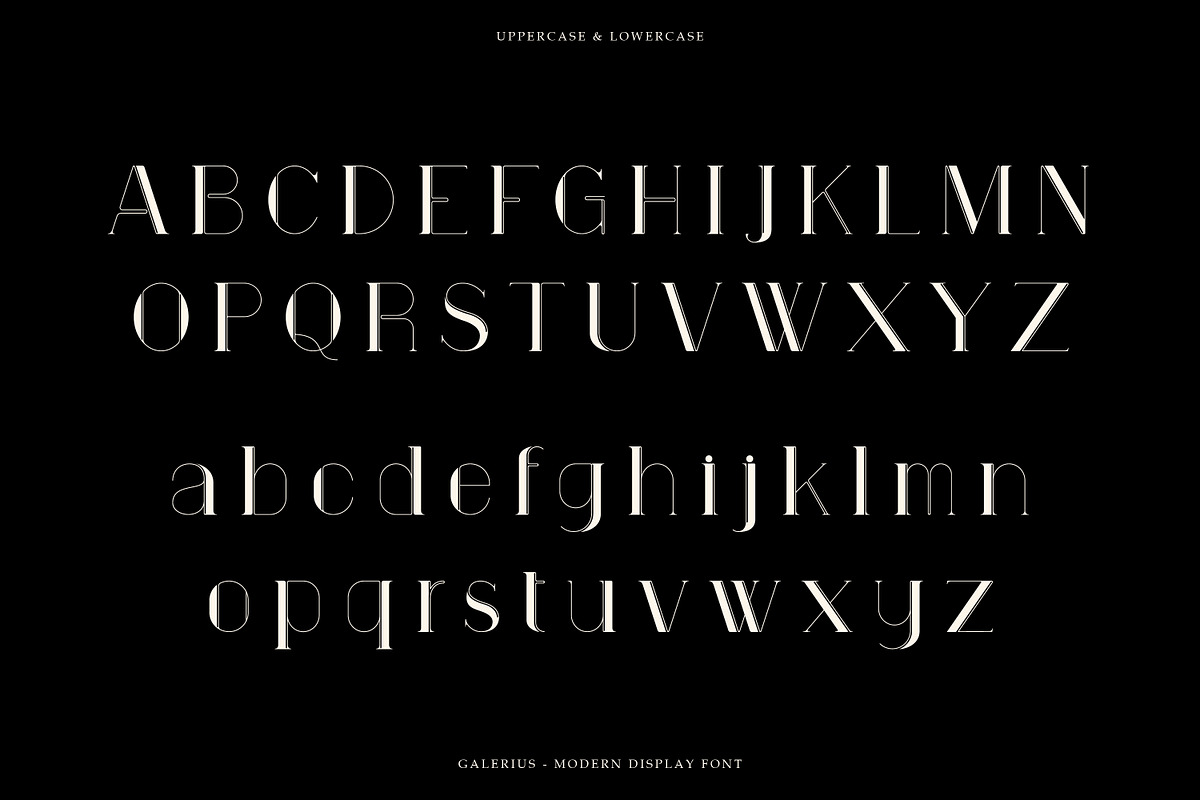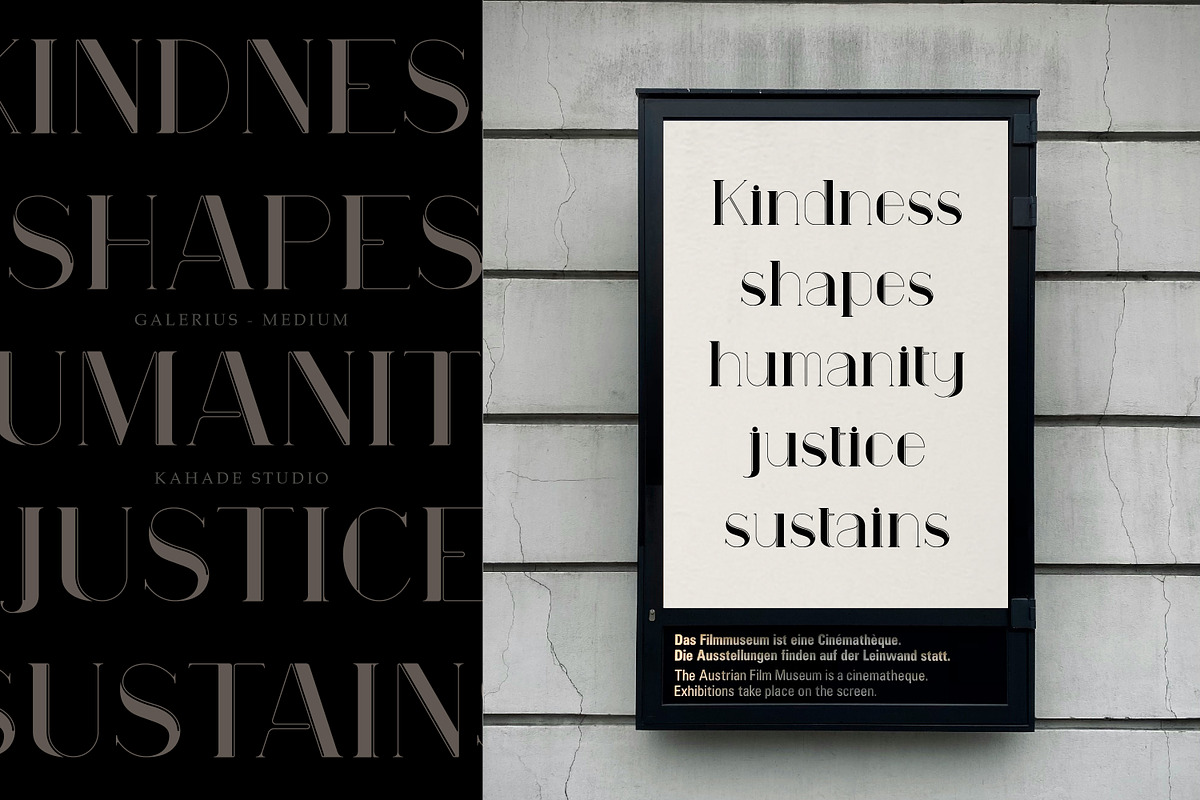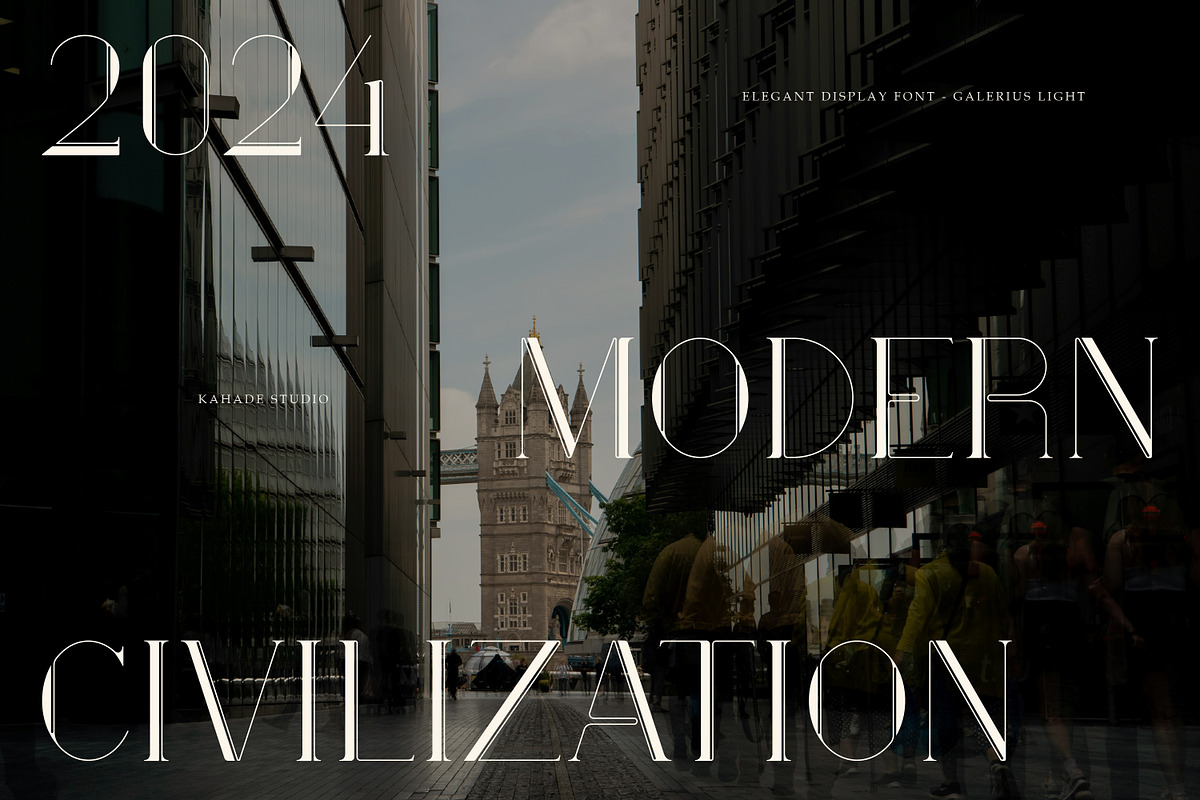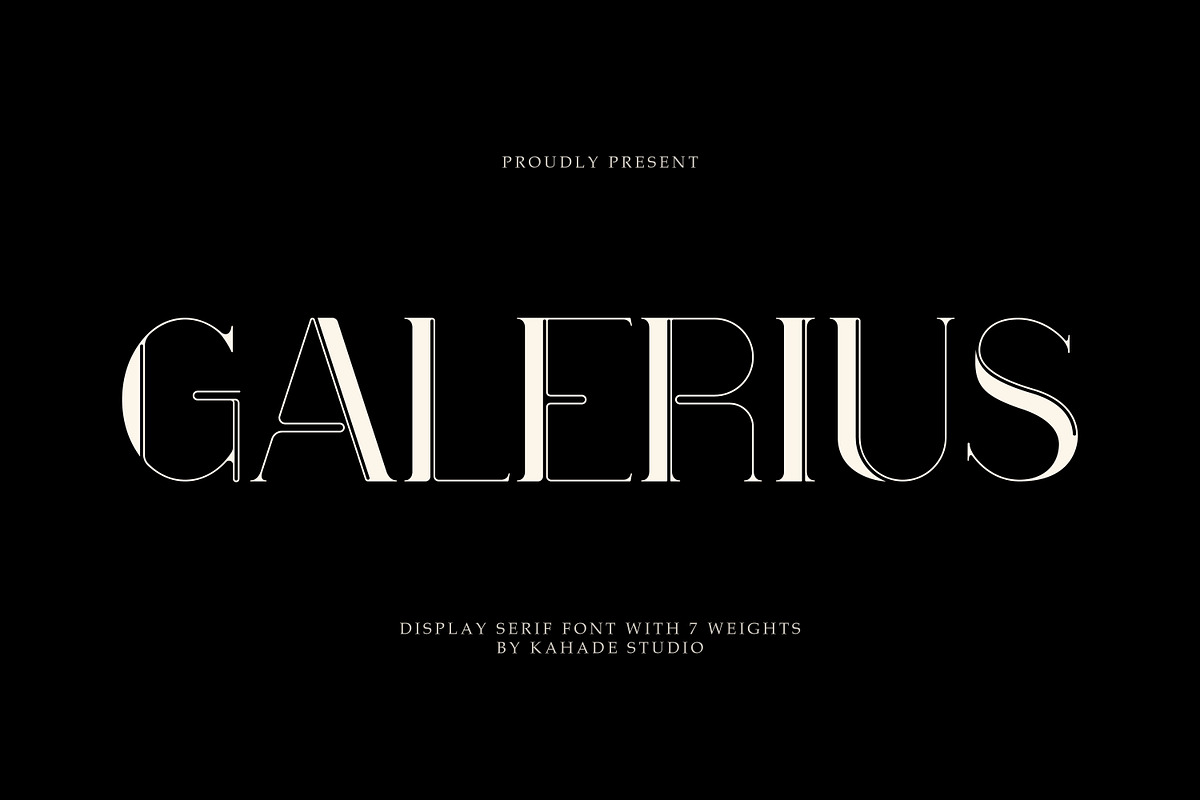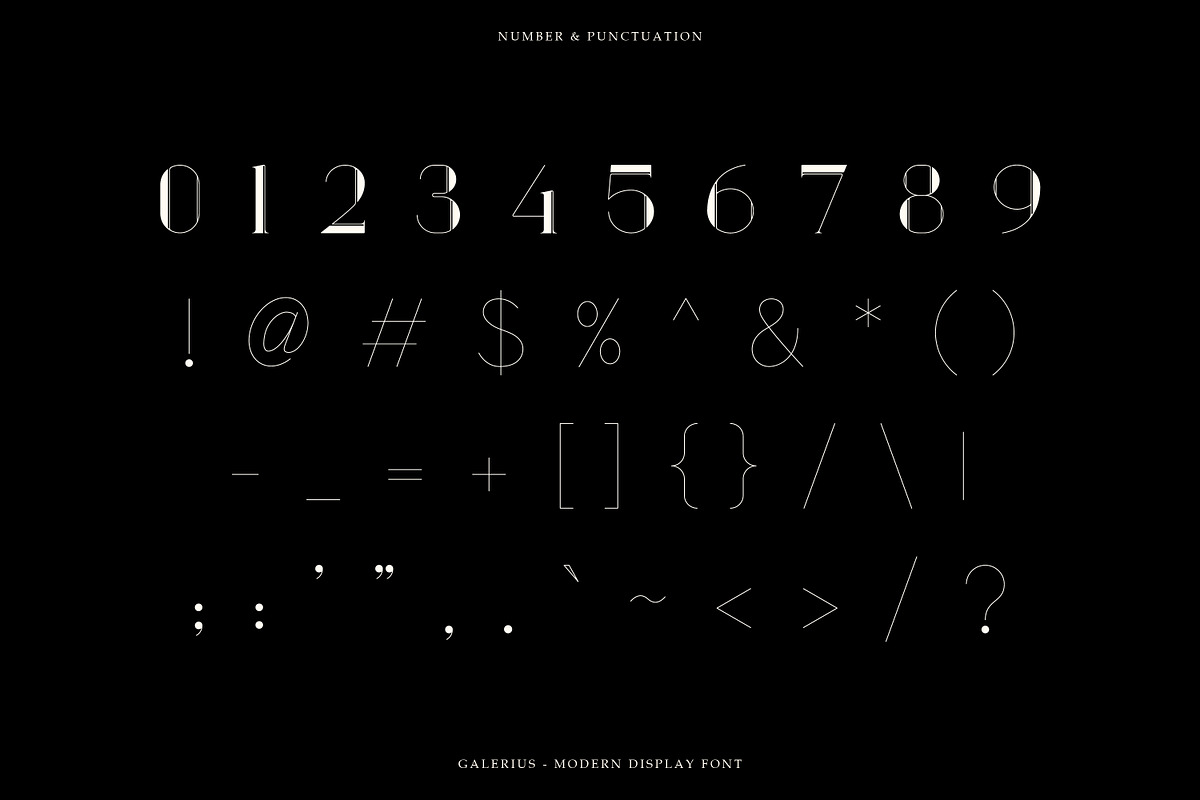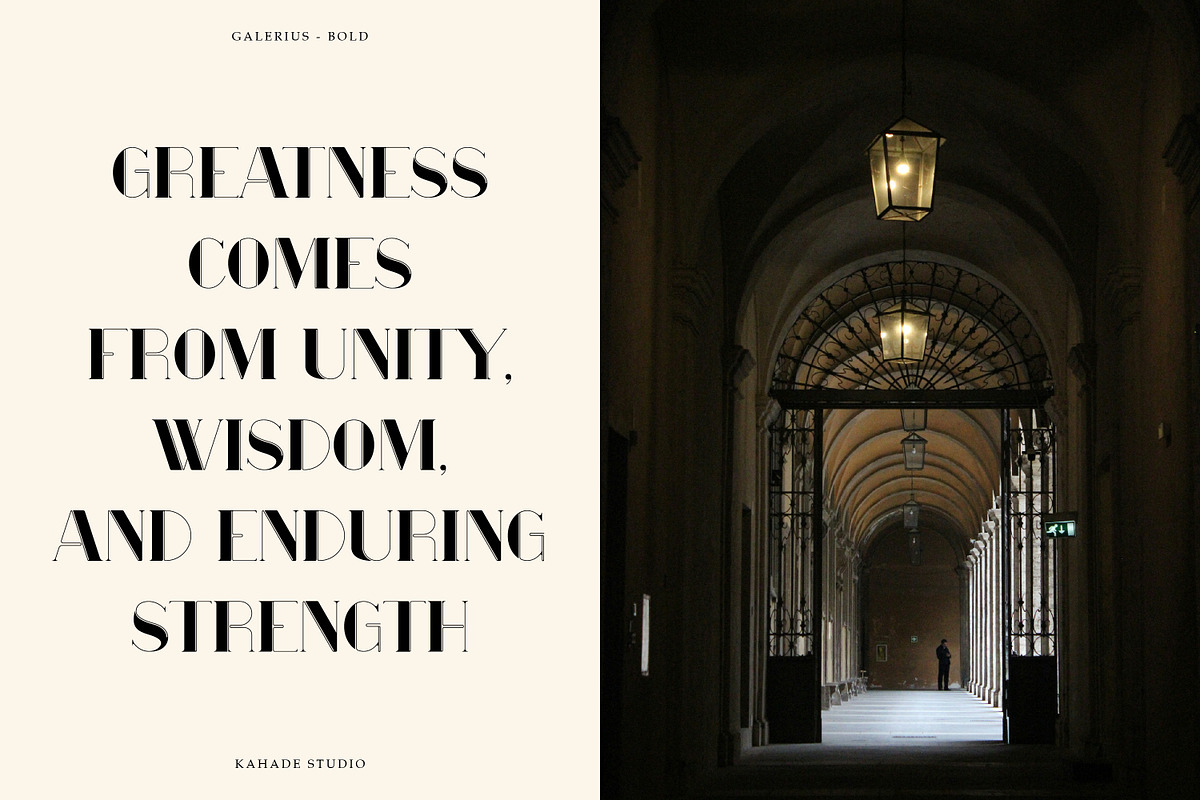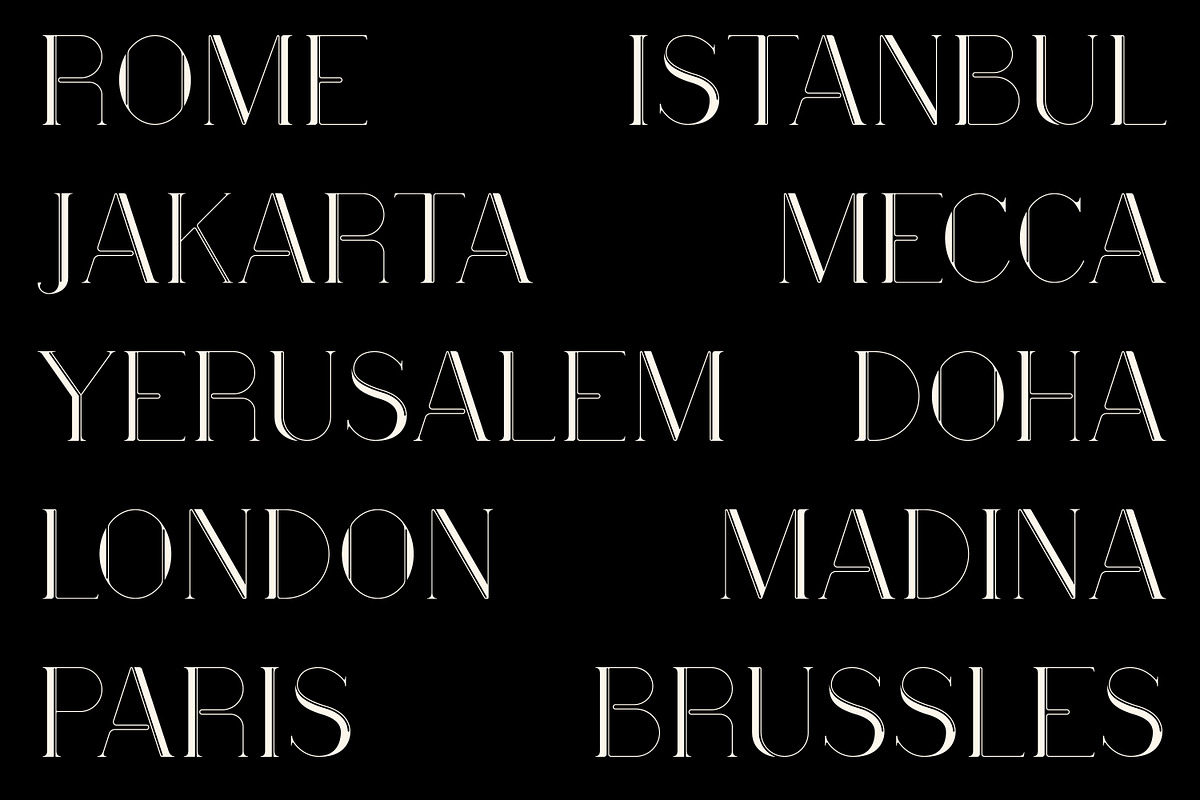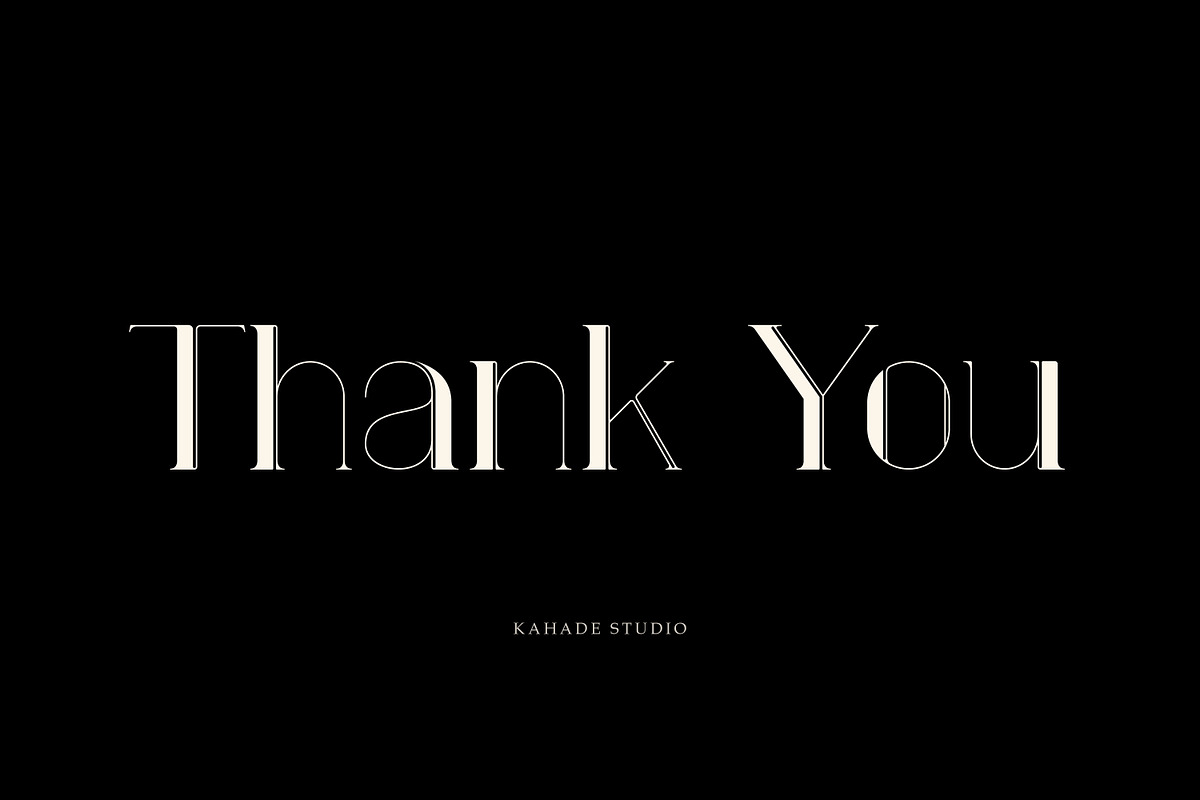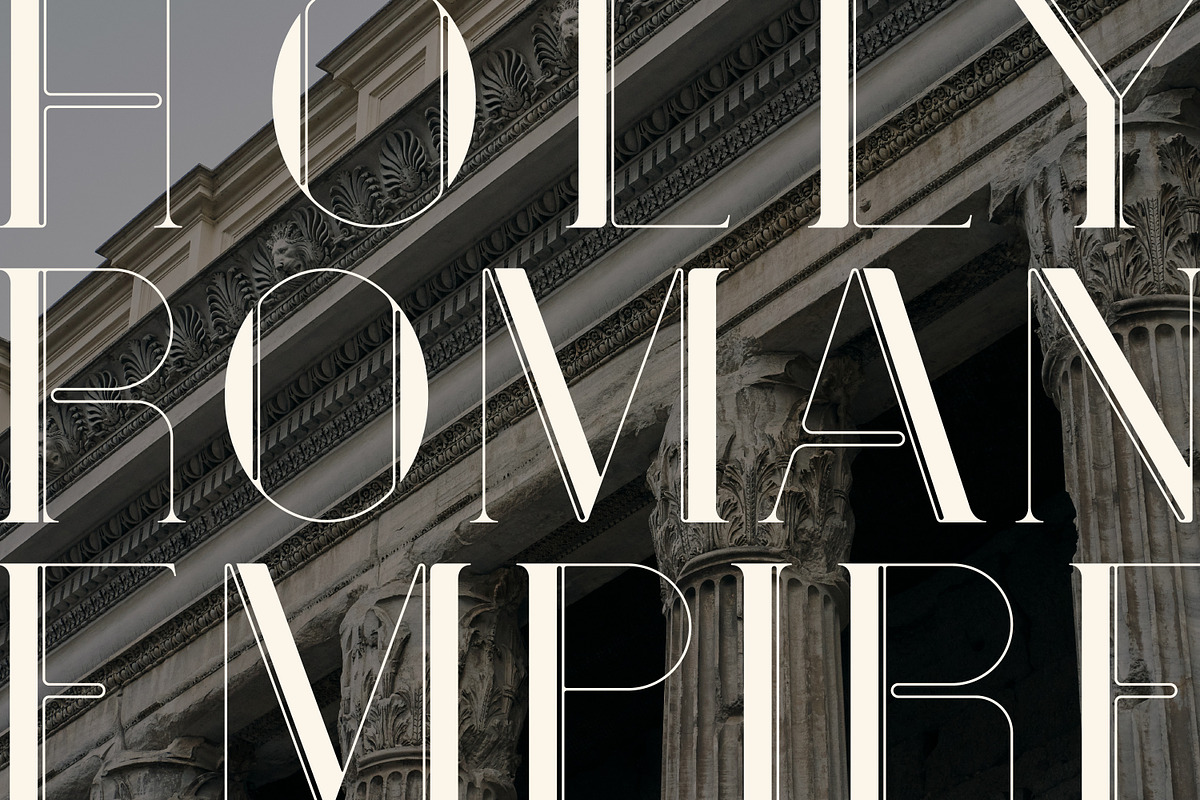
Galerius | Display Serif Font
Galerius – Elegant Display Serif Font. This font has a modern, minimalist, and elegant character. Suitable for your various special project needs.